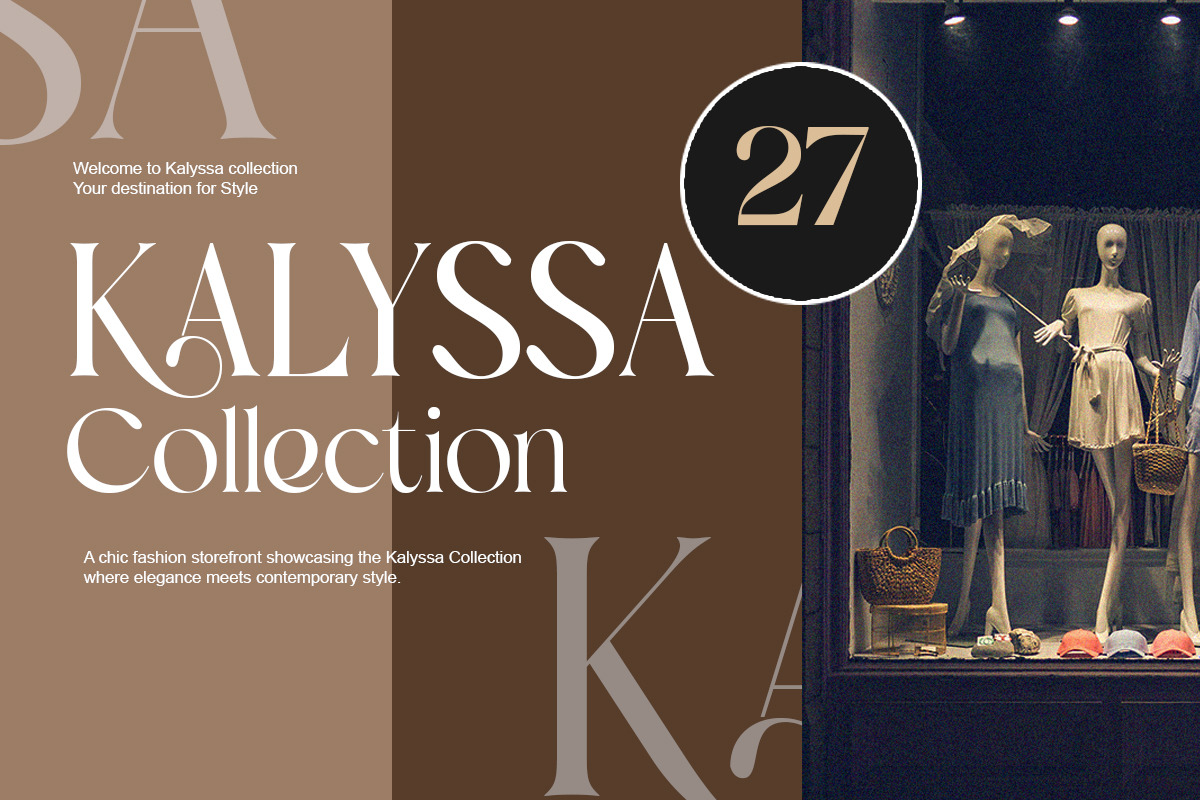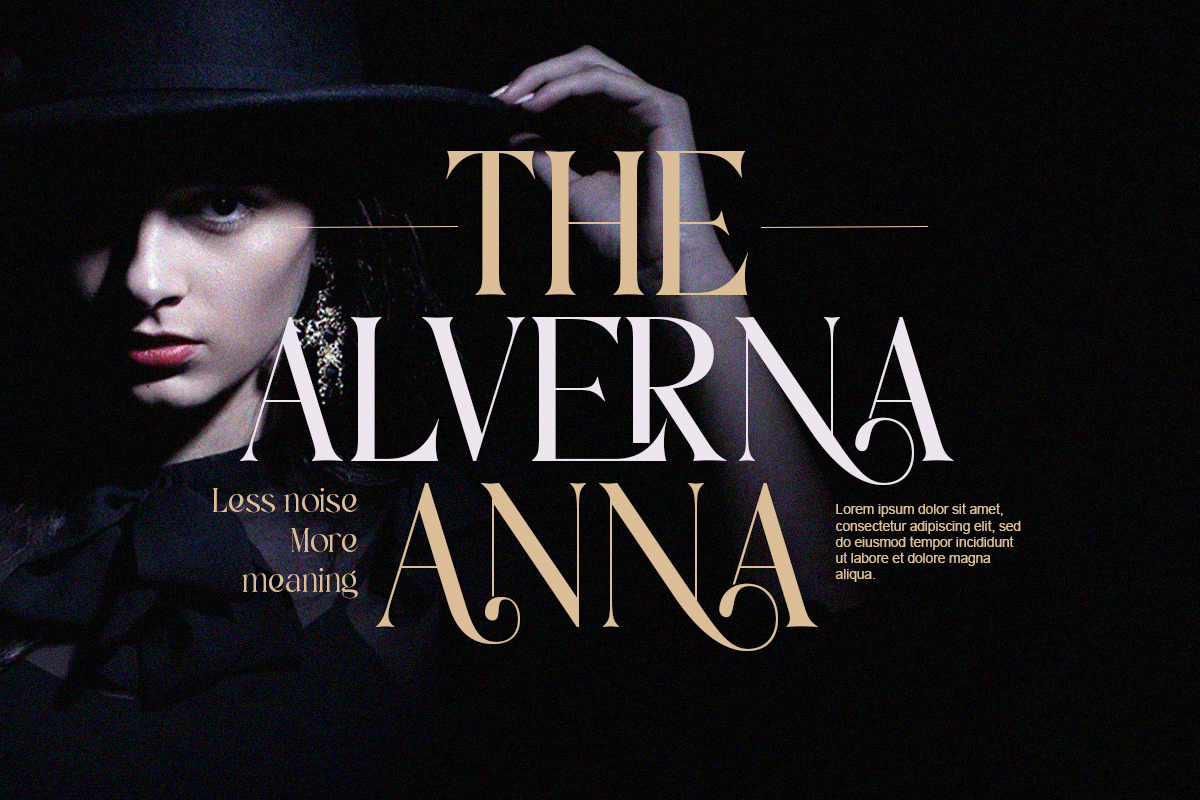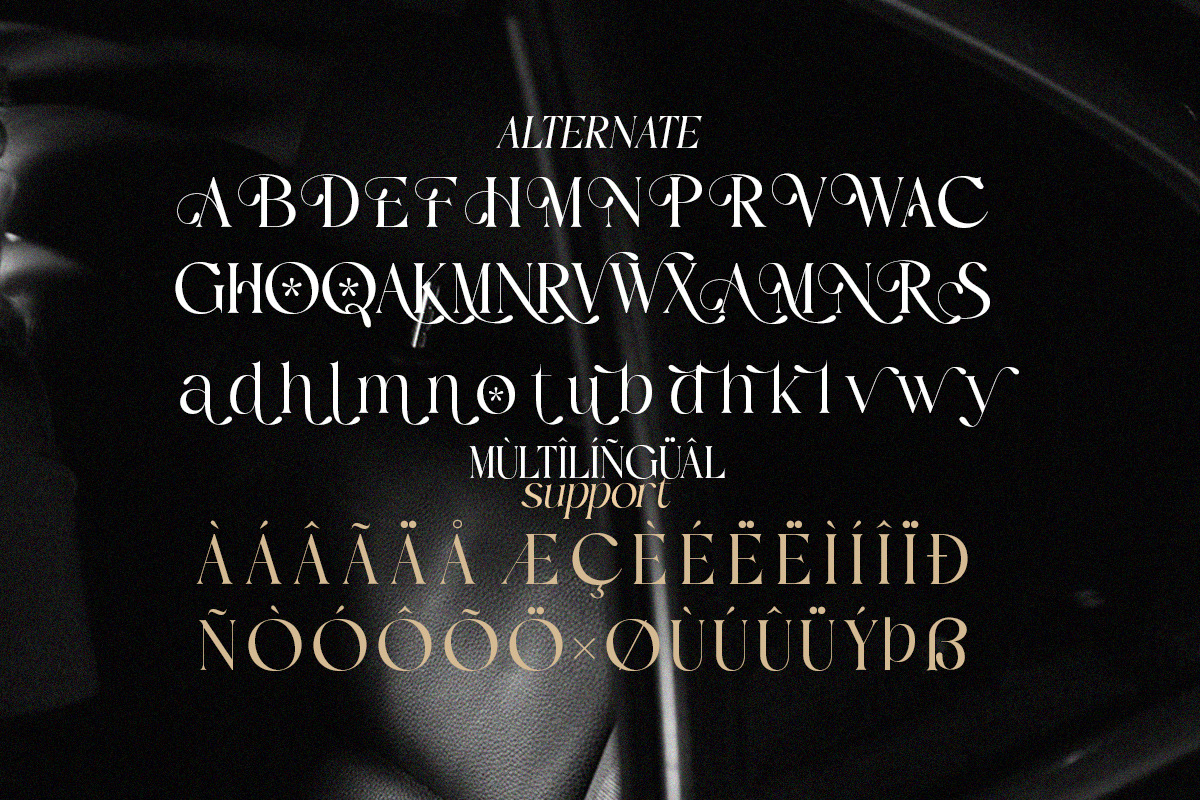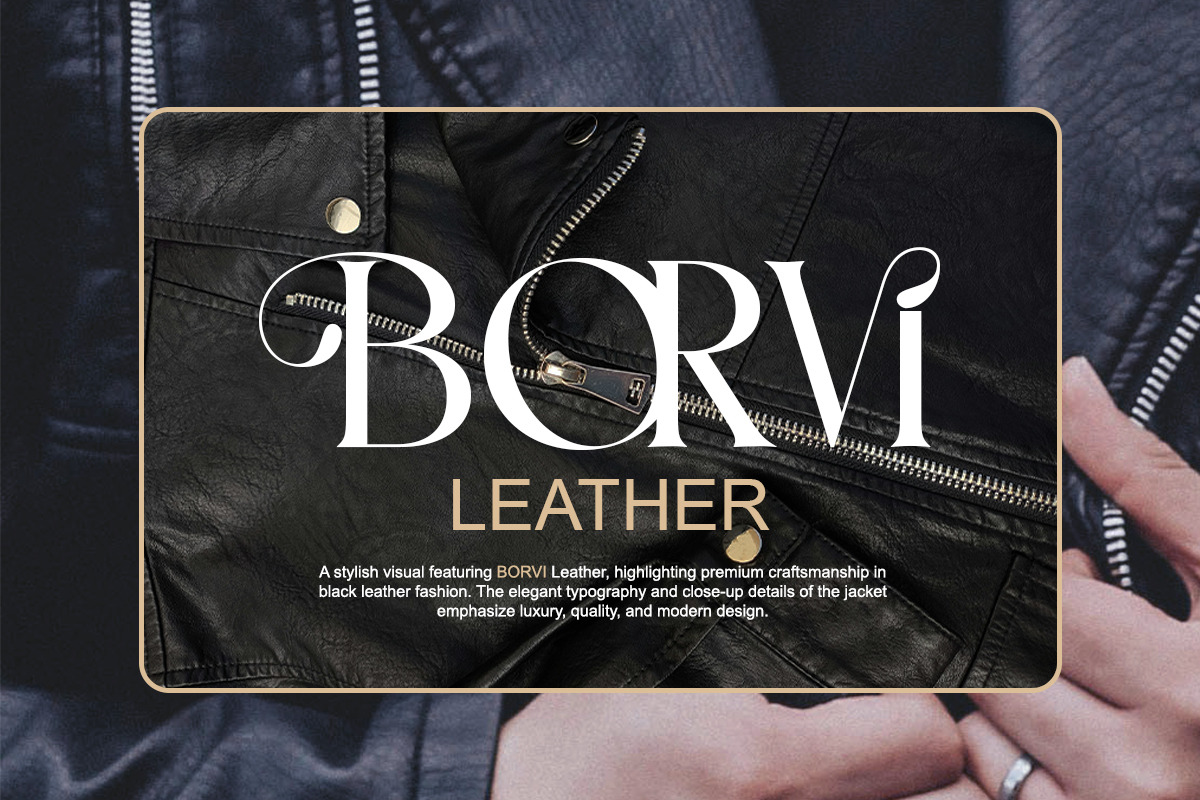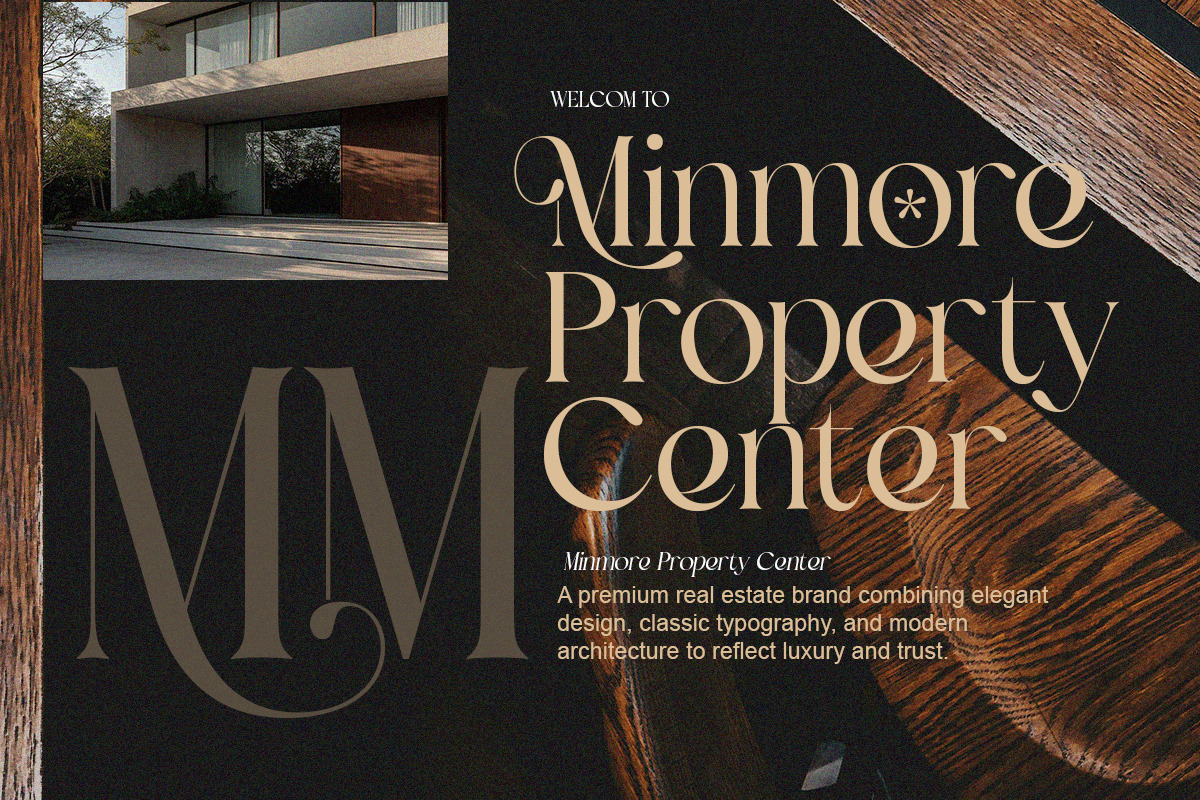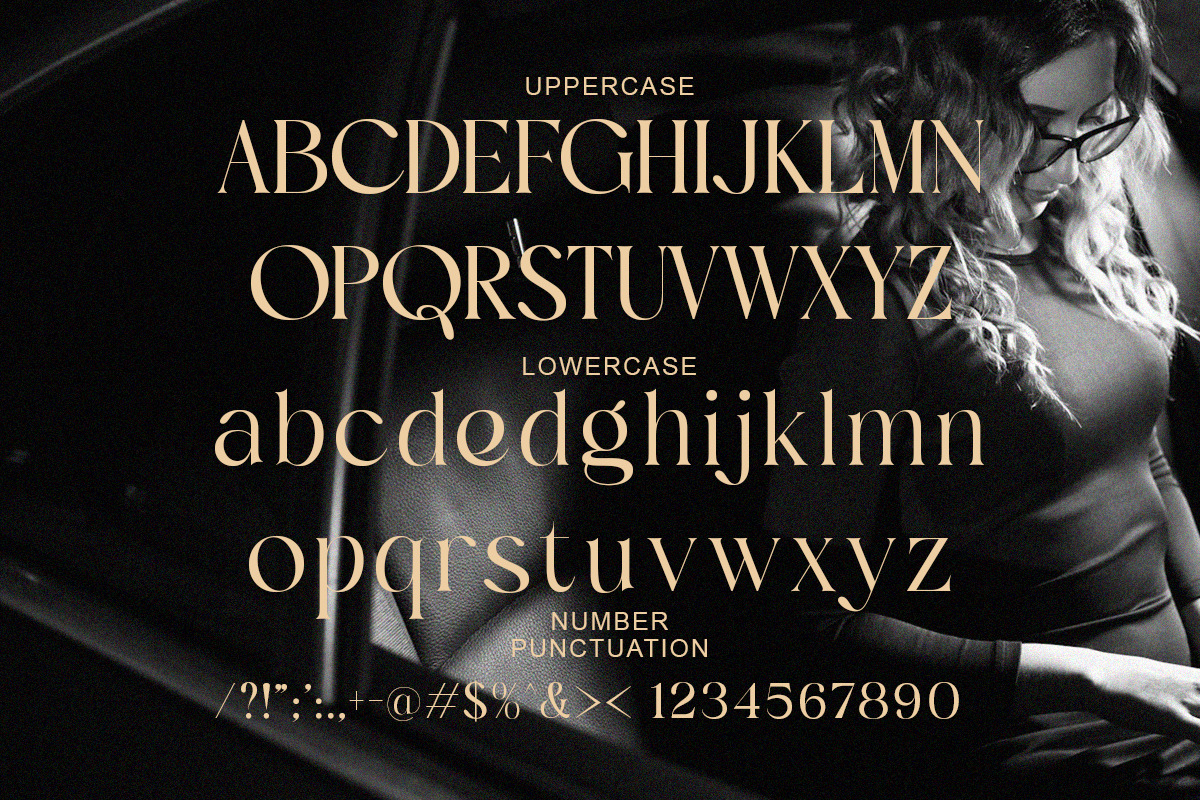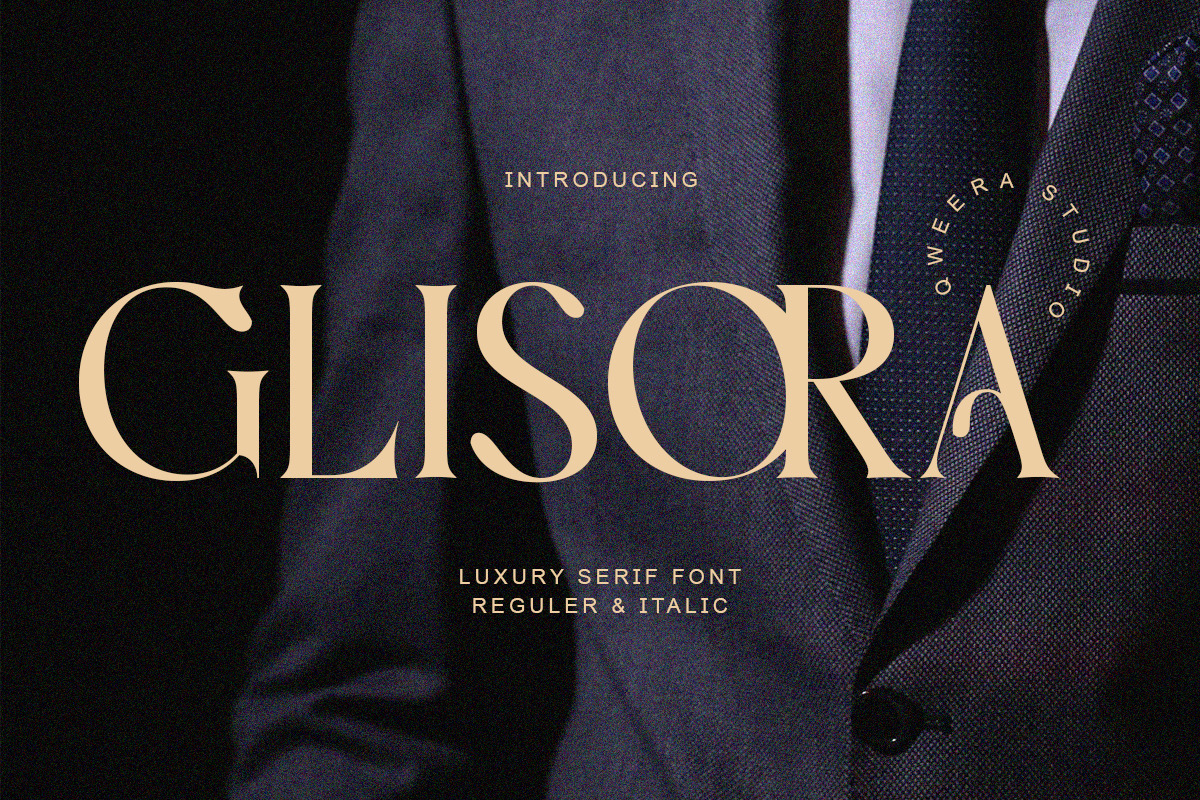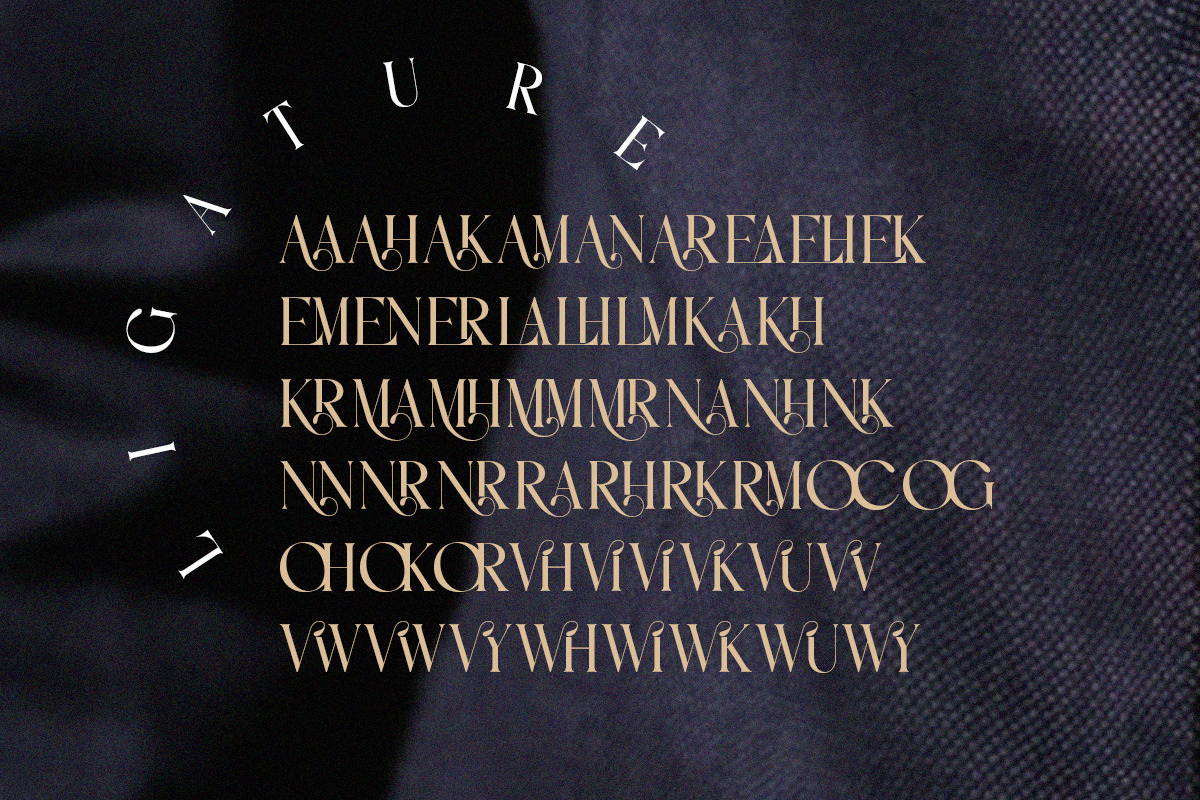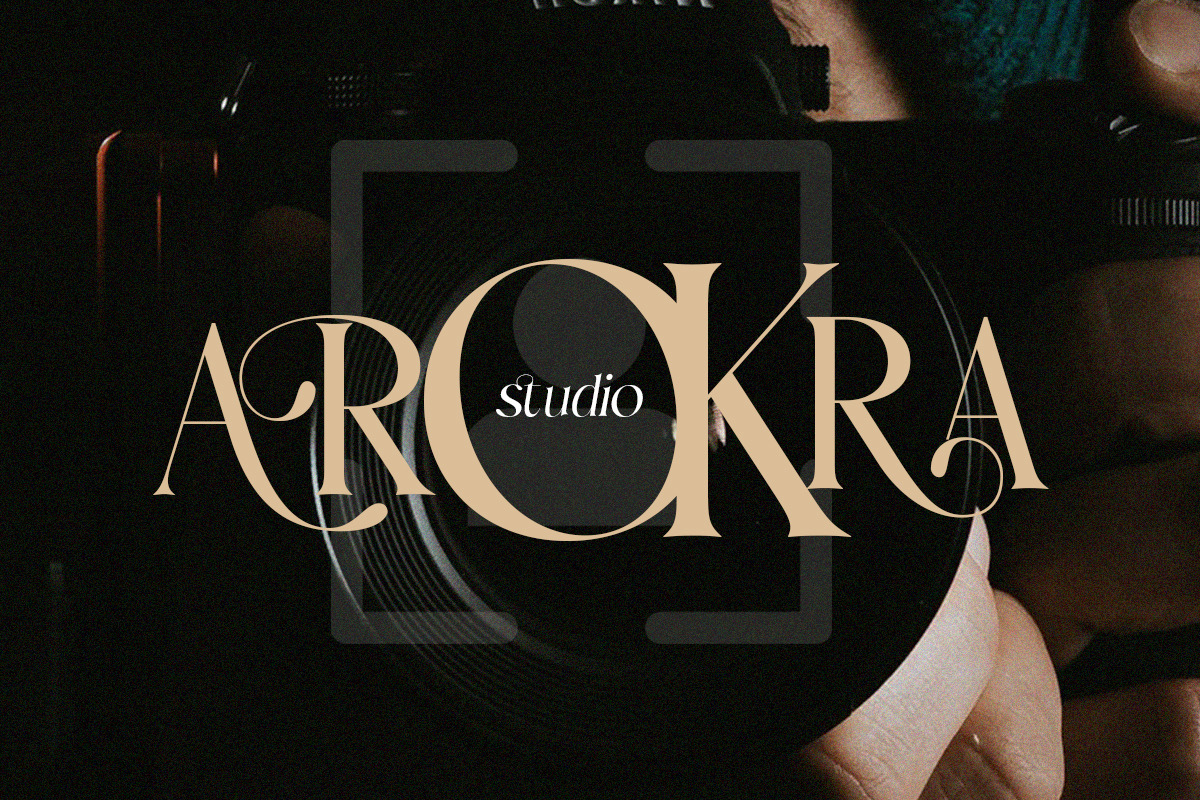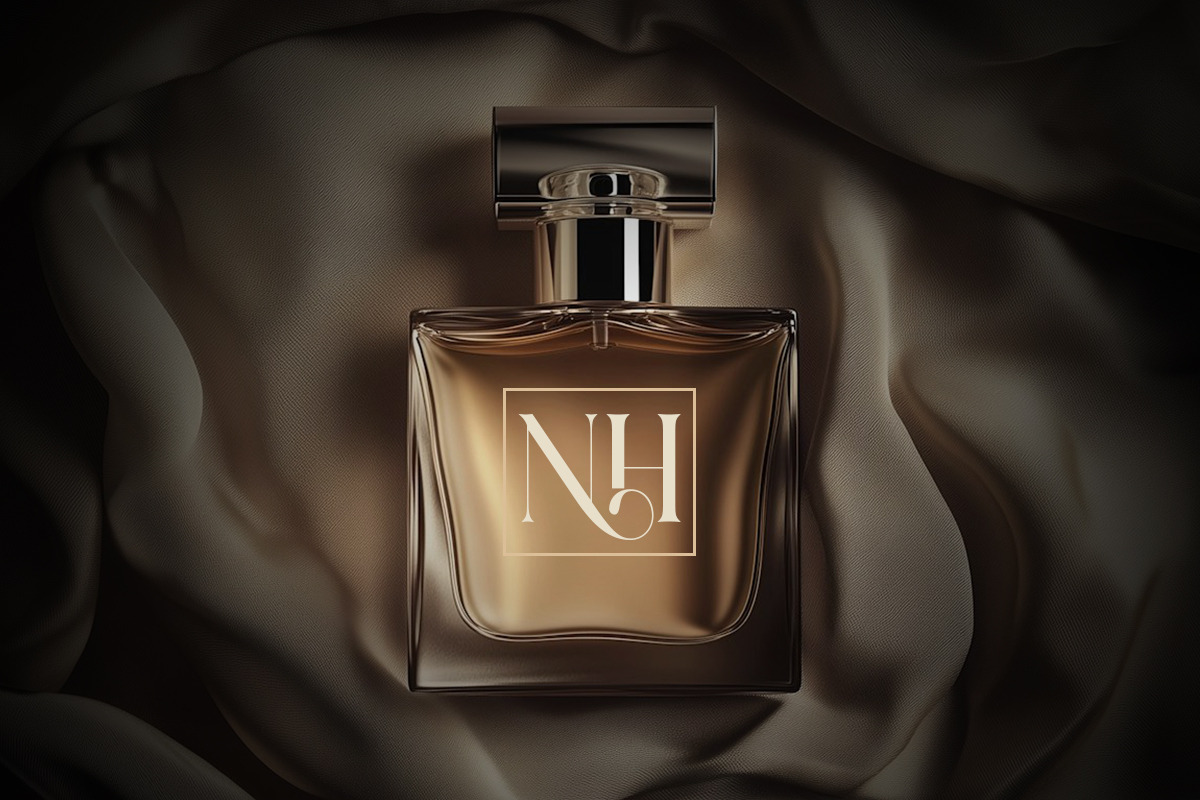
Glisora - Timeless Luxury Serif Font
Introducing Glisora – a modern luxury serif font infused with fashion elegance and premium sophistication.
With its sleek curves, refined weight contrast, and unique flourishes, Glisora was crafted for high-end visuals that need both style and authority. It exudes elegance from every serif stroke.
Ideal for designers aiming to create premium branding, editorial finesse, or visual storytelling with character.
Whether it’s a fashion label, beauty product, portfolio cover, or formal invitation, Glisora brings a commanding presence with luxury written all over it.
- Classy ligatures & alternates
- Regular & italic styles included
- Fashion branding & logotype
- High-end packaging & editorial layout
- Beauty campaigns & personal branding
- Web headers & product presentations
- Elegant invitations & premium wedding materials
- Portfolio lookbooks & cover design